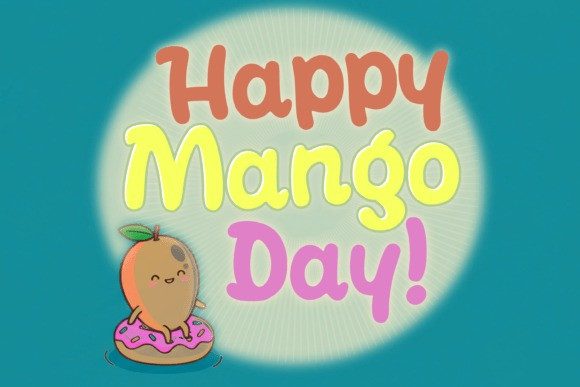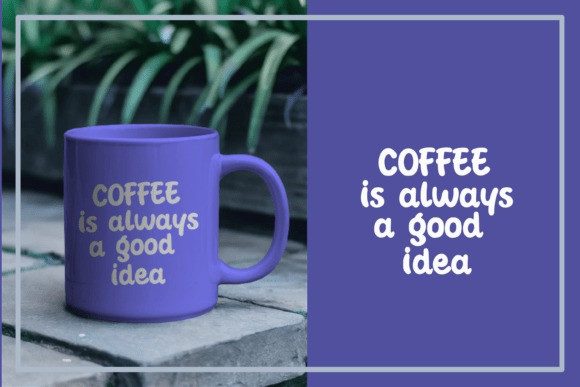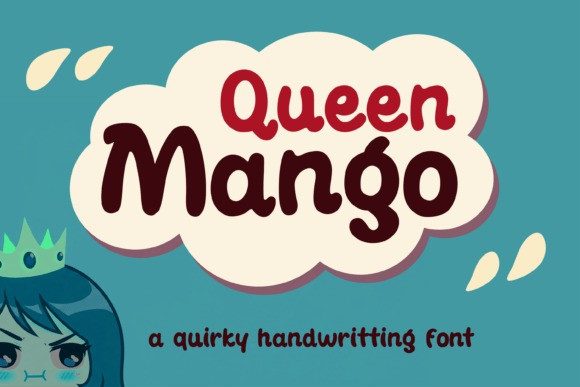
Queen Mango Font
Queen Mango Font a burst of personality to your creative projects with Queen Mango, a playful and quirky handwritten font that’s full of charm and character! 🍋✨Each letter is crafted with a cheerful bounce and smooth rounded edges, making it perfect for cute logos, fun packaging, kids’ books, stickers, social media posts, and greeting cards. The bold and friendly design gives your words a lively and approachable feel.Whether you’re designing something adorable, funny, or whimsical, Queen Mango will instantly add that sweet and sassy handwritten touch your project needs.